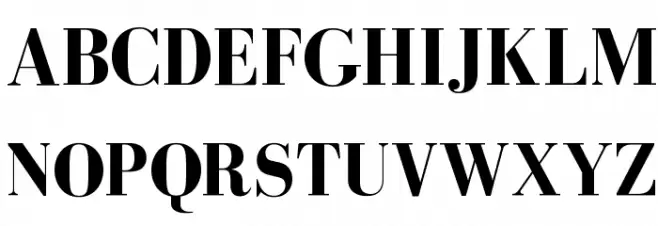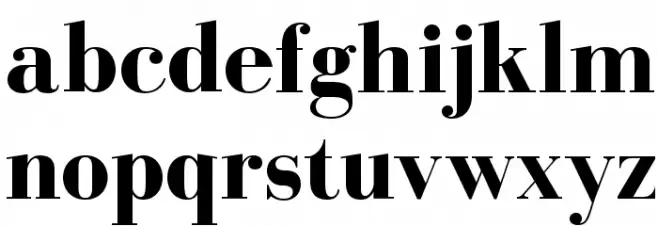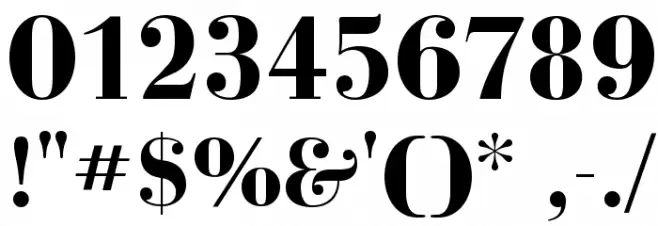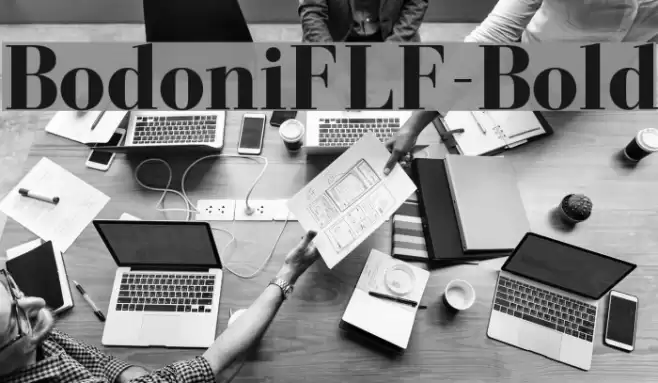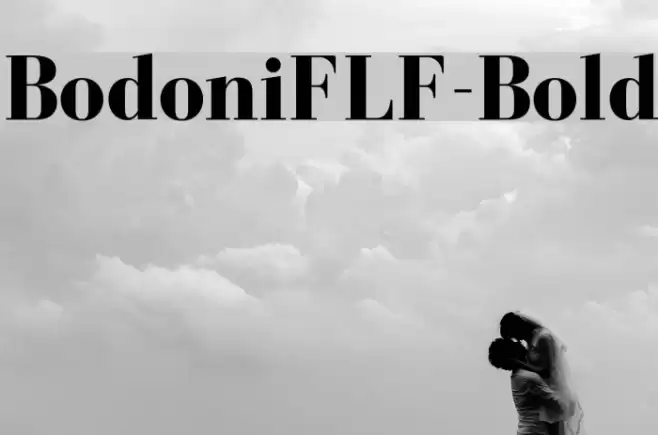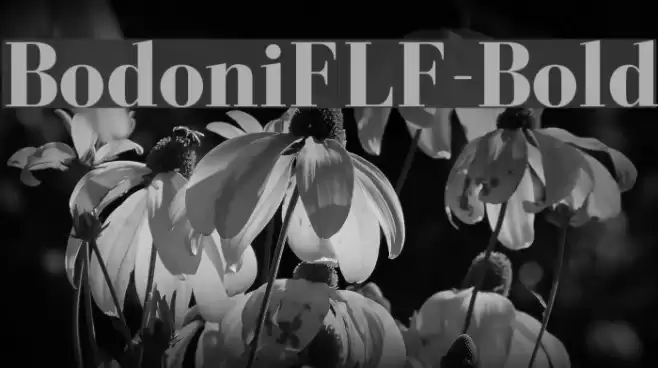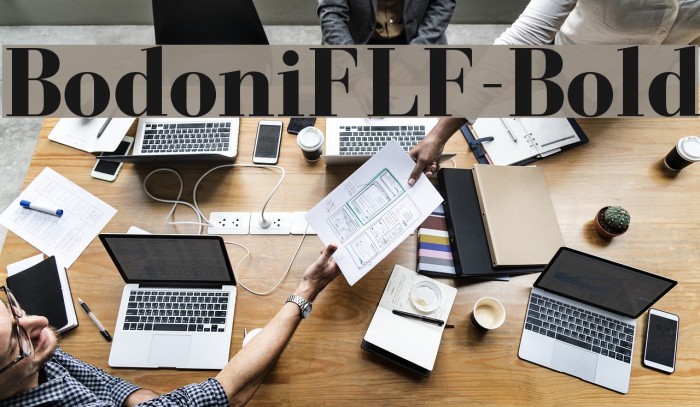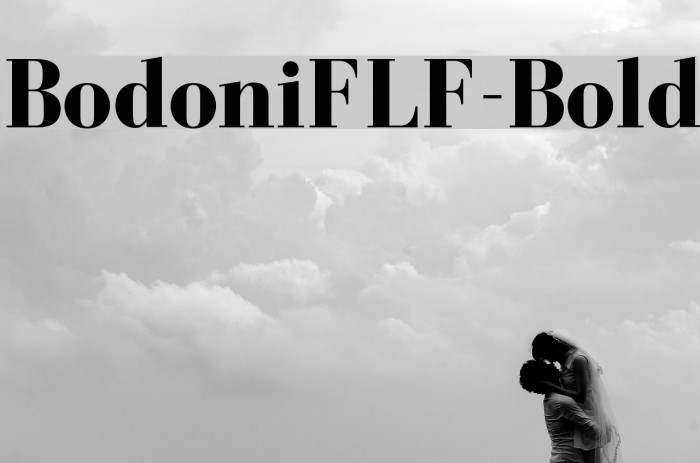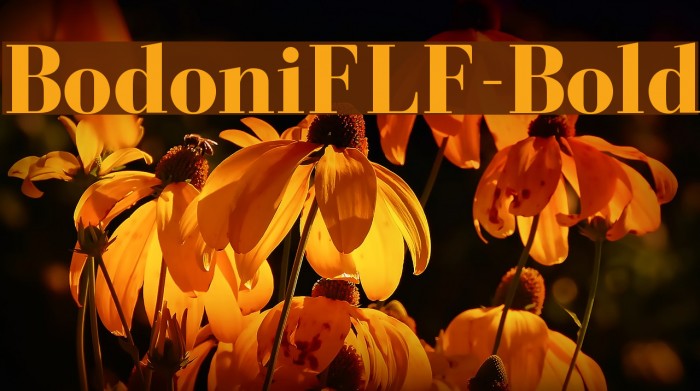
BodoniFLF-Bold
This font is a classic serif typeface characterized by its elegant and sophisticated appearance. It features high contrast between thick and thin strokes, giving it a refined and stylish look. The serifs are sharp and pronounced, adding to its formal and traditional feel. The uppercase letters are tall and commanding, while the lowercase letters maintain a balanced and harmonious proportion. The numerals are clear and distinct, making them easy to read. Special characters are designed with the same attention to detail, ensuring consistency throughout the typeface. This font is ideal for projects that require a touch of elegance and class.
A classic serif typeface with high contrast and elegant serifs.
- Proposed Projects: Ideal for luxury branding, editorial design, wedding invitations, and high-end product packaging.
- Category: Serif
- Contrast: High
- Overall Style: Classic
- Use Case: Headlines, Logos, Editorial design